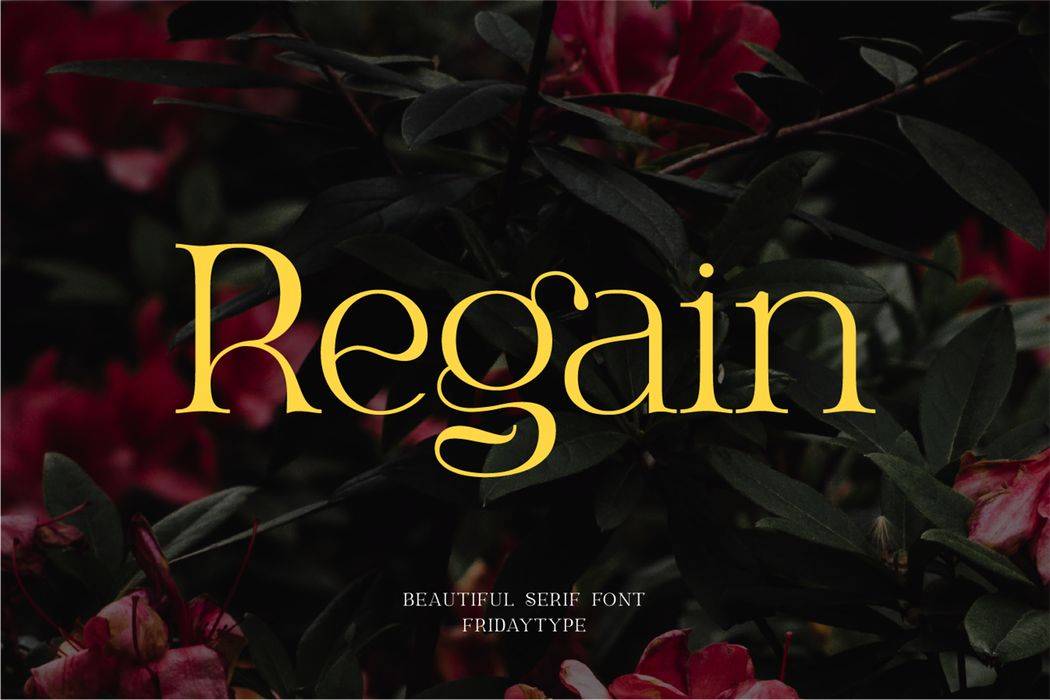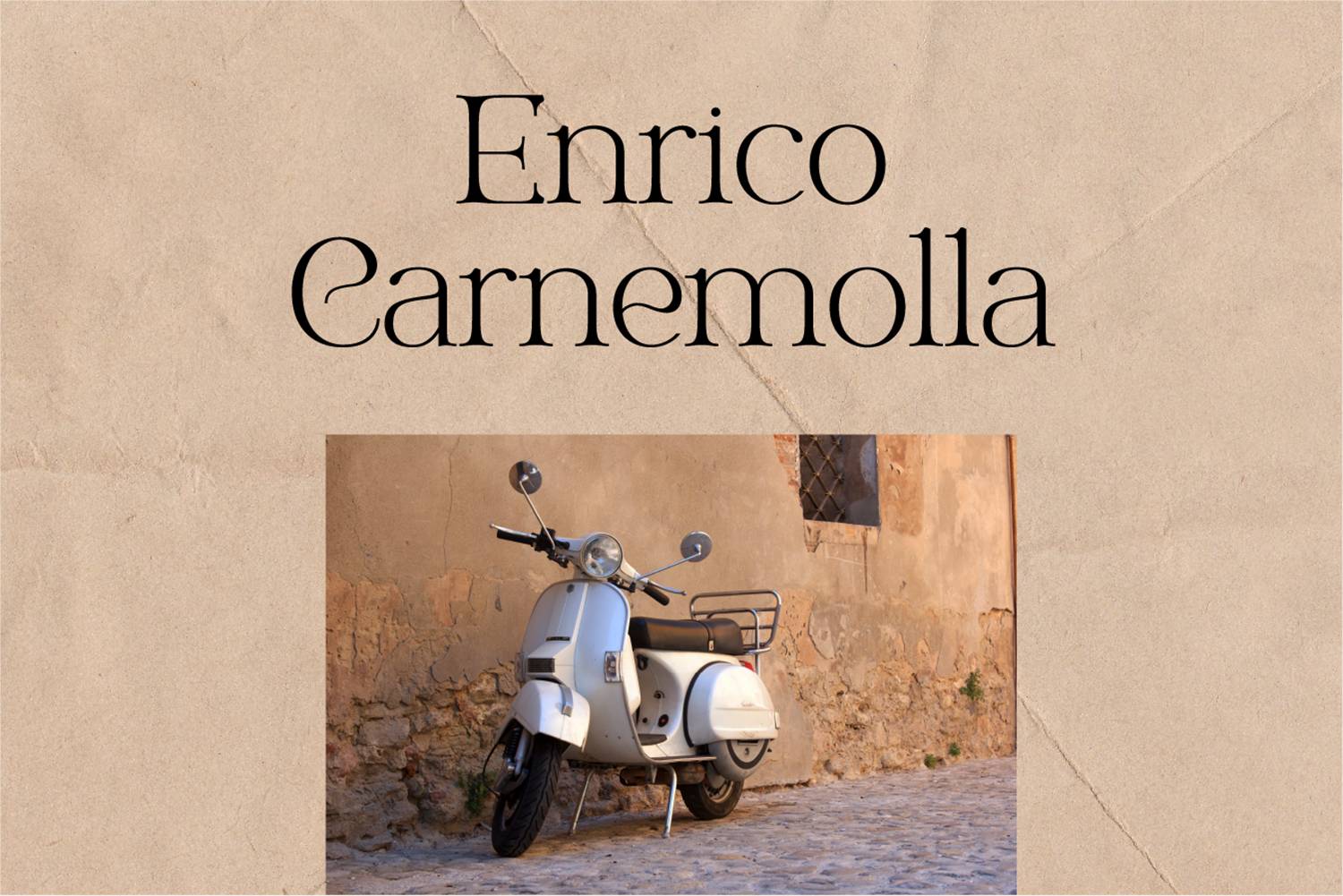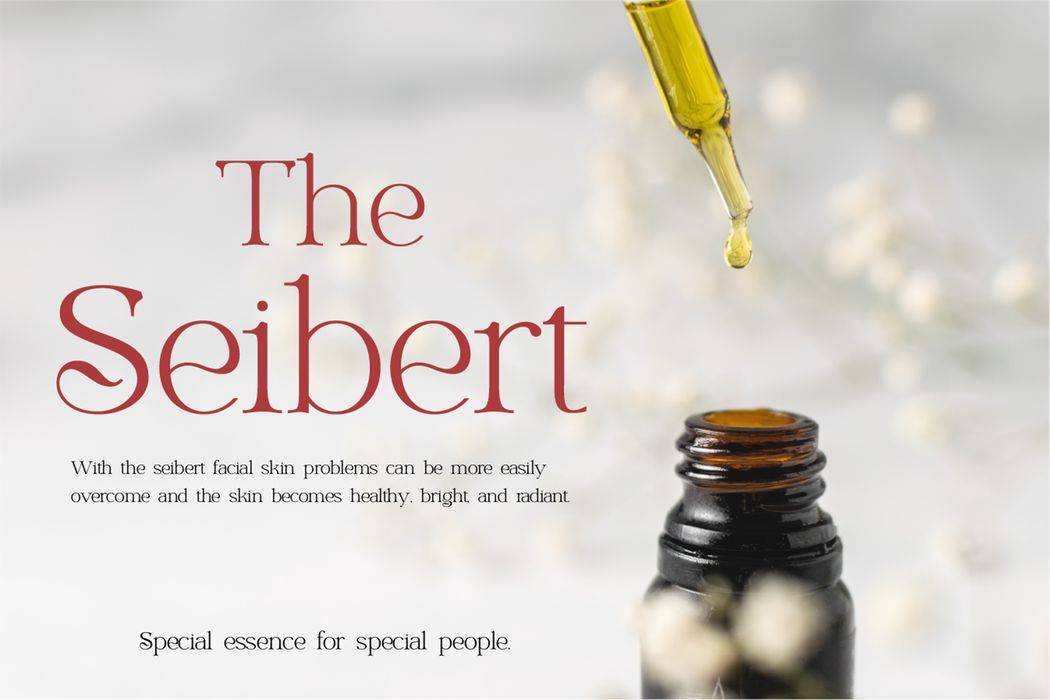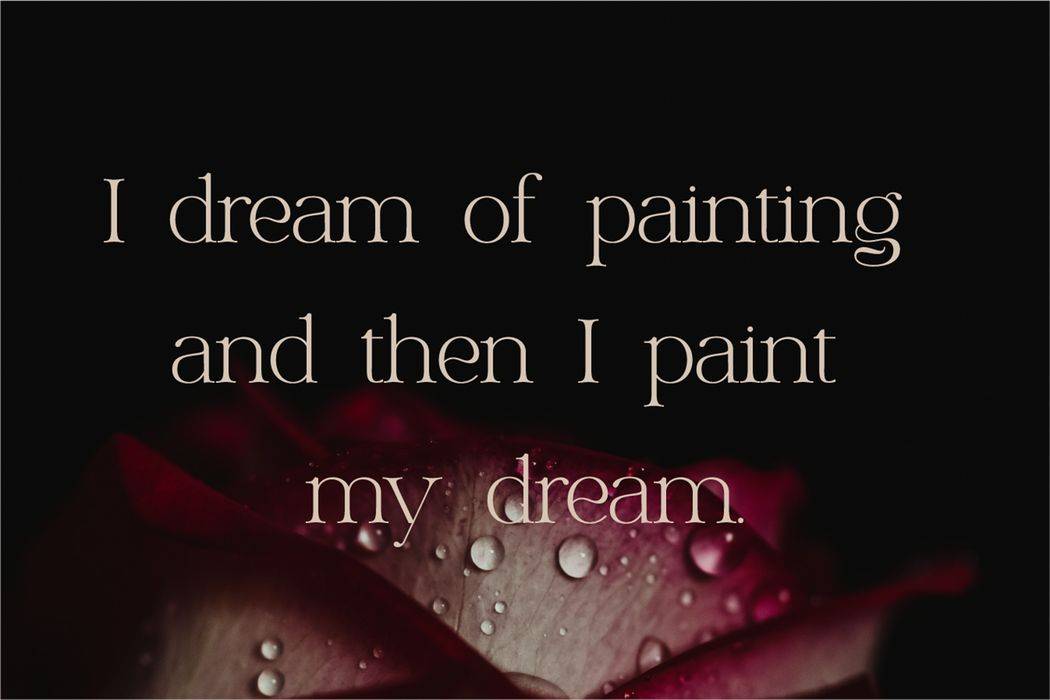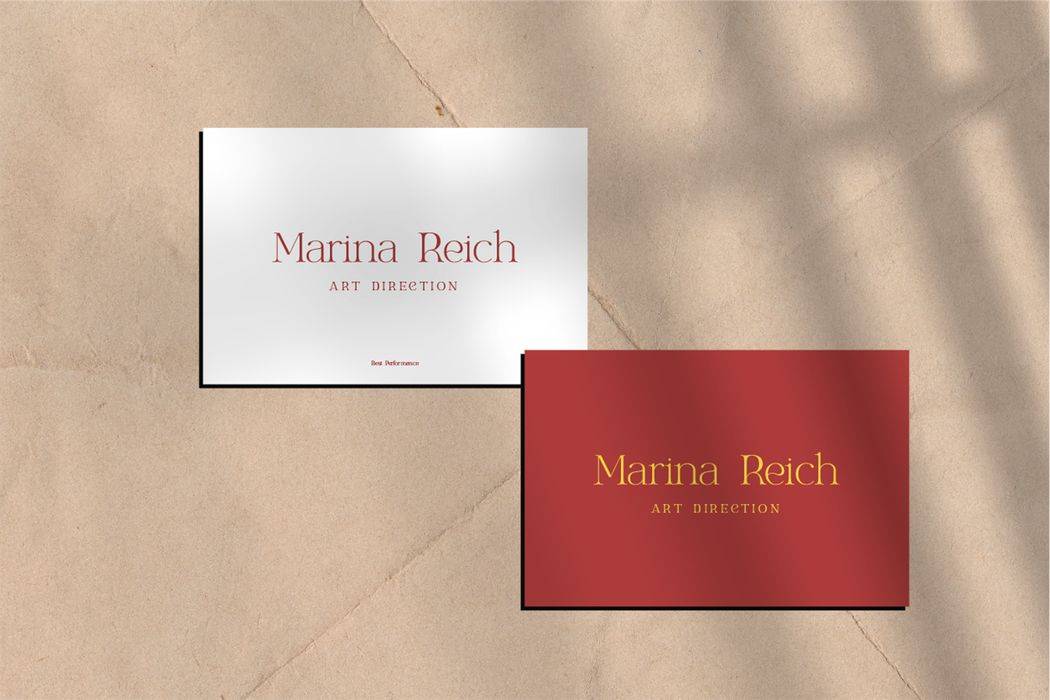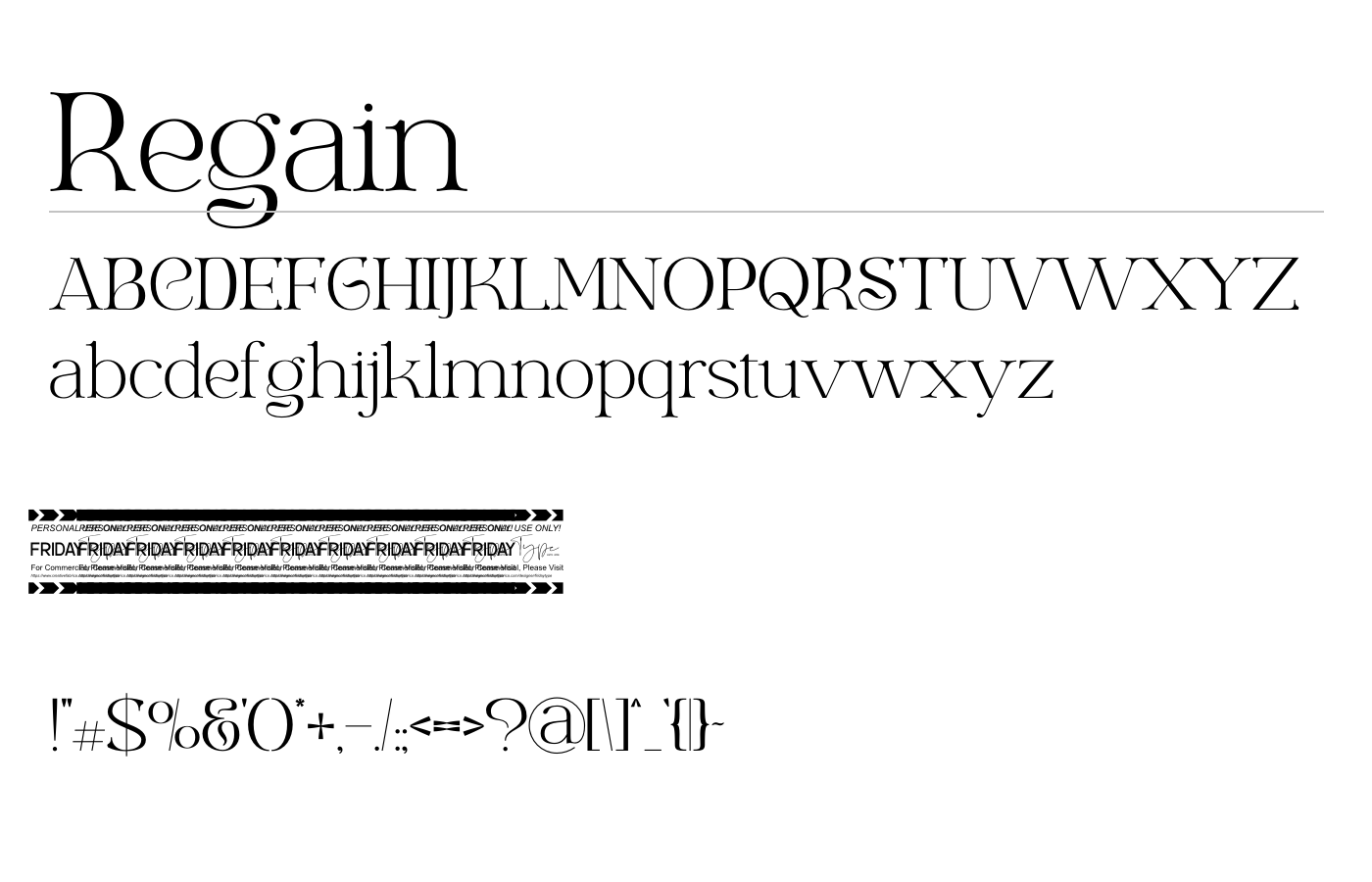
Regain is a delicate serif font with a refined, high-contrast design that combines elegant, thin strokes with subtle bracketed serifs. Its distinctive letterforms, such as the unique loops and angled terminals, give it a sophisticated and artistic feel, making it ideal for luxury branding, editorial headlines, and stylish packaging. This font works best where a touch of elegance and modern flair is needed to convey a sense of exclusivity and creativity.
Regain Font
About Regain Font
| Font family | Regain Font |